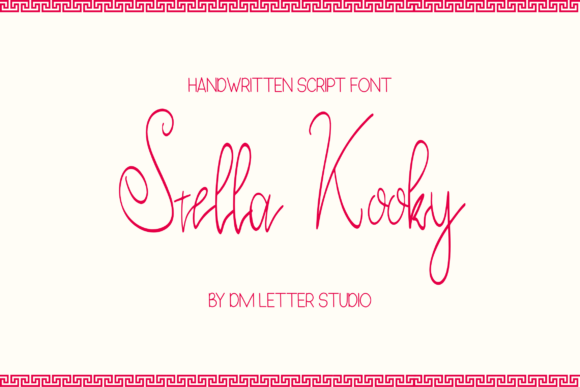
Introducing Stella Kooky Font: The Perfect Blend of Quirkiness and Boldness
In the world of typography, fonts play a crucial role in conveying the tone and personality of a brand or creative project. With the numerous font options available, it can be challenging to find one that stands out from the crowd. However, if you’re looking for a typeface that effortlessly combines quirks with boldness, look no further than Stella Kooky Font. This uniquely charming handwritten font is designed to bring an instant energy and individuality to any creation, making it perfect for a wide range of applications.
What Makes Stella Kooky Font So Special?
Stella Kooky Font is a one-of-a-kind typeface that radiates personality. Its lively letterforms and wistful curves give it a buoyant style that’s sure to capture the attention of your audience. Whether you’re working on a children’s book, product packaging, social media content, or DIY crafts, this font is designed to amplify your creations with a touch of joy and lightheartedness.
- Unique Character: Stella Kooky Font boasts a distinctive character that’s both quirky and bold. Its unusual letterforms and curves make it stand out from more traditional fonts.
- Handwritten Feel: This font has a warm, handwritten feel that’s perfect for creating a personal connection with your audience.
- Versatility: Stella Kooky Font is incredibly versatile and can be used in a wide range of applications, from children’s literature to product packaging and social media content.
Perfect for Children’s Literature
Stella Kooky Font is a stunner in children’s literature. Its playful and whimsical style is sure to delight young readers and bring your story to life. The font’s lively letterforms and curves make it perfect for titles, headings, and body text, creating a cohesive and engaging reading experience.
Some popular applications of Stella Kooky Font in children’s literature include:
- Picture Books: The font’s bold and playful style makes it perfect for picture books, where visuals and text work together to tell a story.
- Early Readers: Stella Kooky Font is also suitable for early readers, where its clear and legible design helps to make reading easy and fun.
- Activity Books: The font’s playful style makes it perfect for activity books, such as coloring books, puzzle books, and workbooks.
A Favorite for Product Packaging
Stella Kooky Font’s spirited curves and playful style make it a favorite for product packaging. The font’s unique character and boldness help to create eye-catching labels and packaging that stand out on store shelves.
Some popular applications of Stella Kooky Font in product packaging include:
- Food and Beverage: The font’s playful style makes it perfect for food and beverage packaging, such as labels for specialty foods, craft beverages, and baked goods.
- Cosmetics and Skincare: Stella Kooky Font’s bold and quirky style is also suitable for cosmetics and skincare packaging, where it can help to create a unique and memorable brand identity.
- Toys and Games: The font’s playful style makes it perfect for toys and games packaging, where it can help to create a fun and engaging brand identity.
Tips and Tricks for Using Stella Kooky Font
To get the most out of Stella Kooky Font, here are some tips and tricks to keep in mind:
- Use it Sparingly: While Stella Kooky Font is a beautiful and eye-catching font, it’s best to use it sparingly to avoid overwhelming your audience.
- Pair it with Other Fonts: The font pairs well with other fonts, such as serif and sans-serif fonts. Experiment with different font combinations to find the perfect look for your project.
- Adjust the Size and Color: Don’t be afraid to adjust the size and color of Stella Kooky Font to suit your project’s needs.
In conclusion, Stella Kooky Font is a uniquely charming typeface that effortlessly combines quirks with boldness. Its handwritten feel, lively letterforms, and wistful curves make it perfect for a wide range of applications, from children’s literature to product packaging, social media content, and DIY crafts. With its versatility and eye-catching style, Stella Kooky Font is sure to amplify your creations with a touch of joy and lightheartedness, ensuring your words make an unforgettable impact.